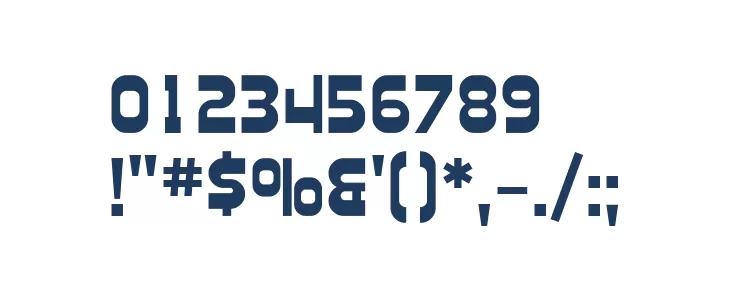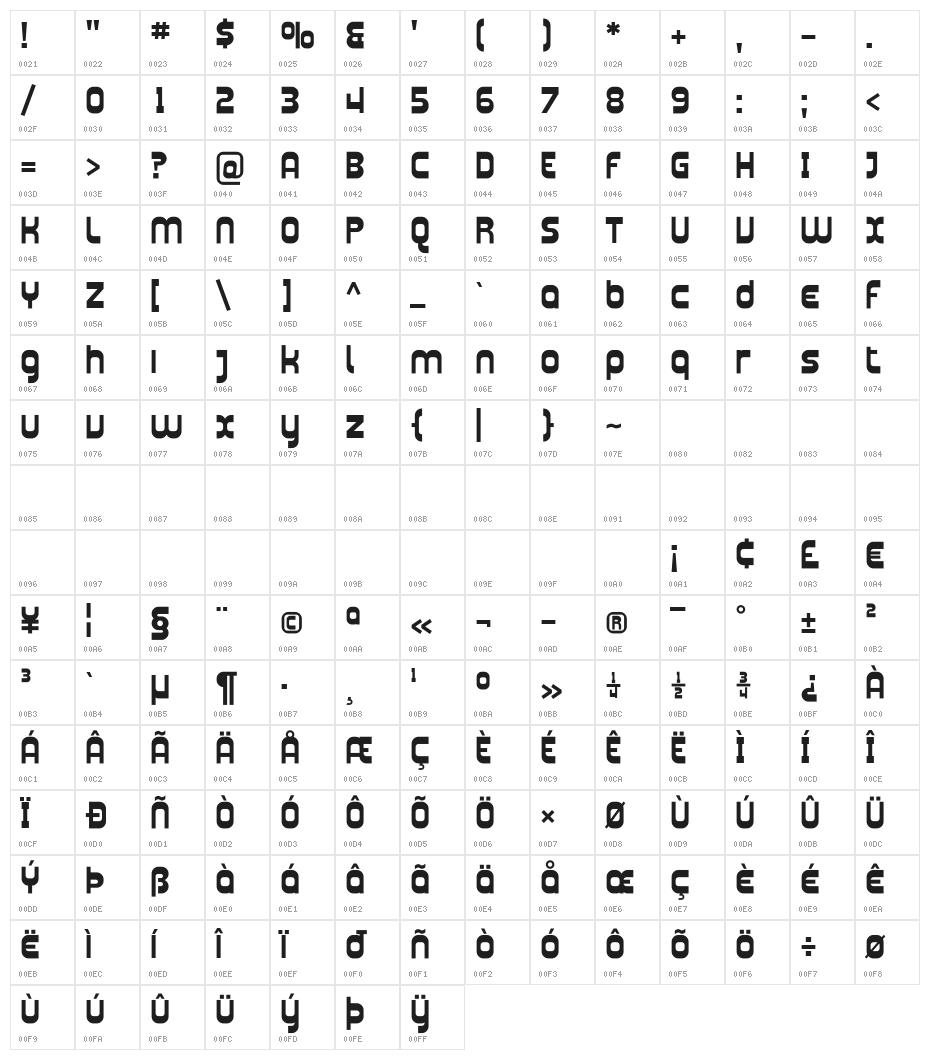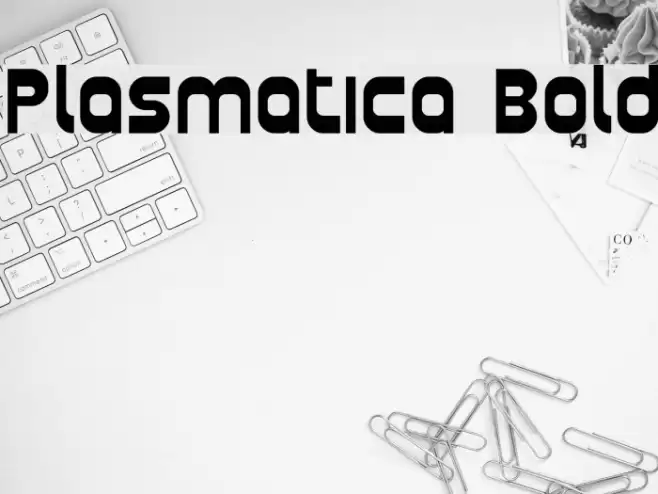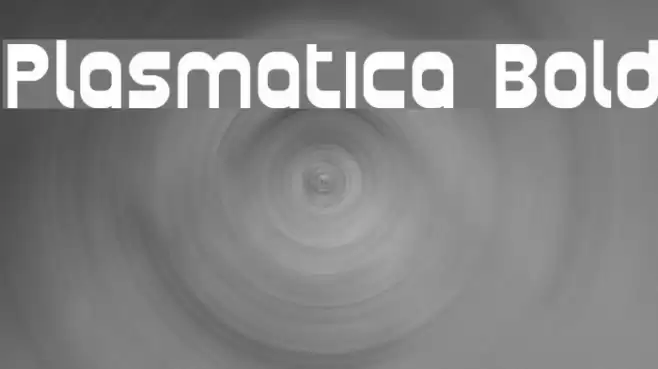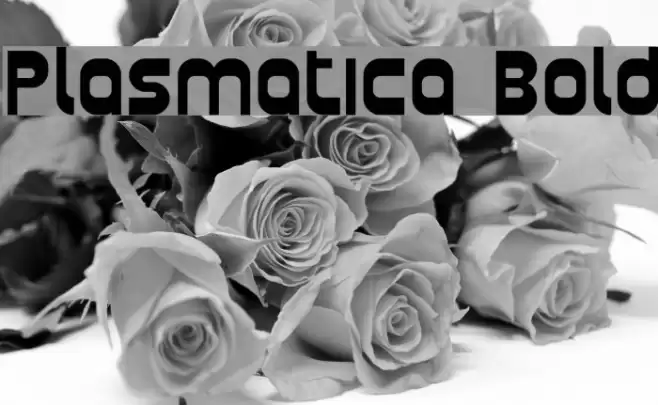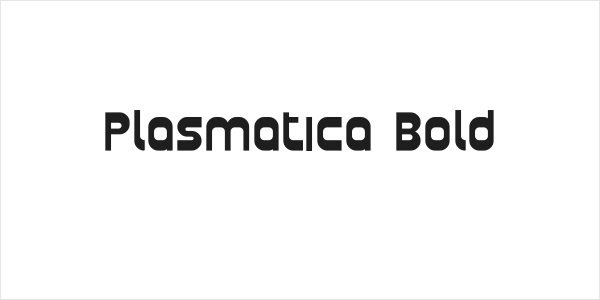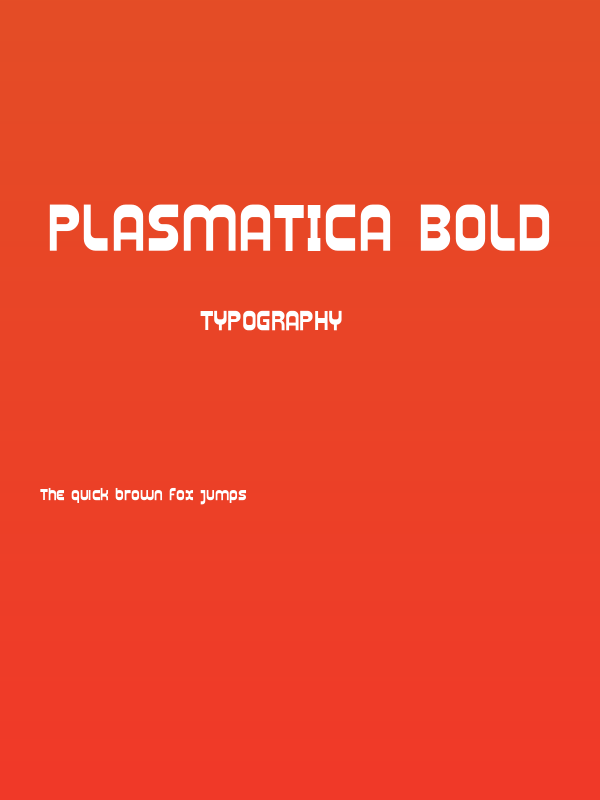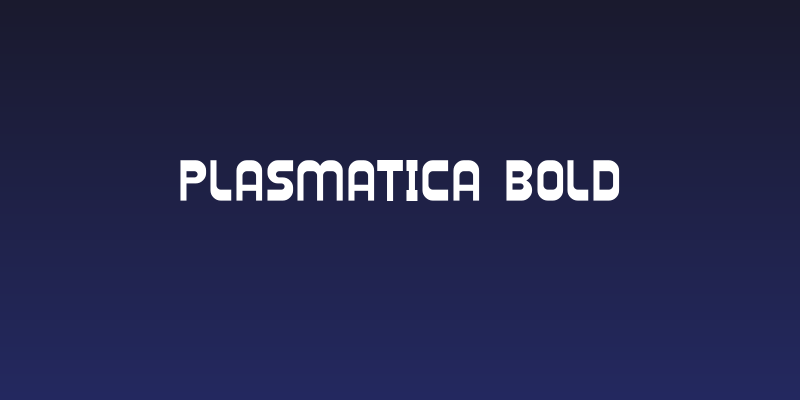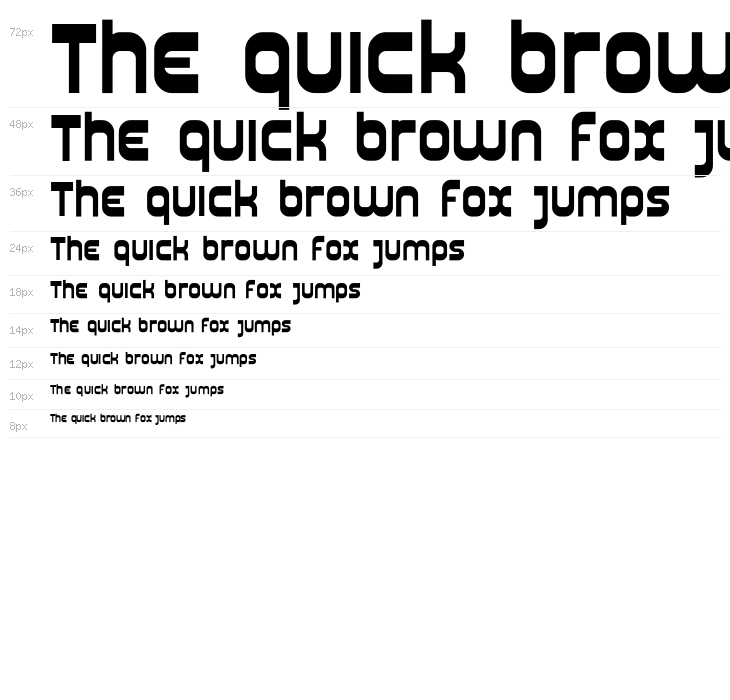
Plasmatica Bold Font
Plasmatica Bold Description
This font features a bold, geometric style with rounded edges, giving it a futuristic and modern appearance. The characters are uniformly thick, providing a consistent and strong visual impact. The uppercase and lowercase letters maintain a cohesive design, with the lowercase mirroring the uppercase in structure but with a slightly reduced height. The numerals are clear and bold, ensuring readability. Special characters are designed to match the overall aesthetic, maintaining the same thickness and rounded edges. This font is ideal for projects that require a modern and bold statement.
| Proposed Projects | Ideal for branding, headlines, posters, and digital media that require a strong, modern look. |